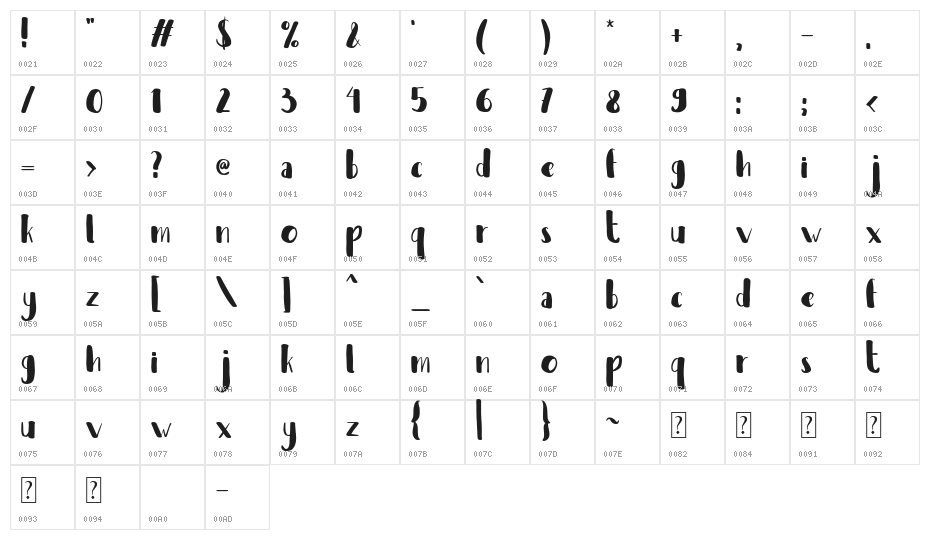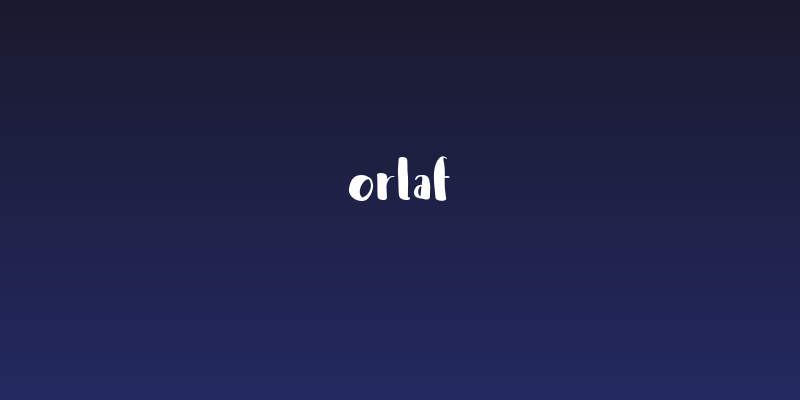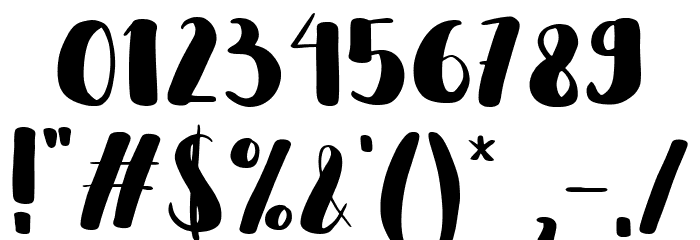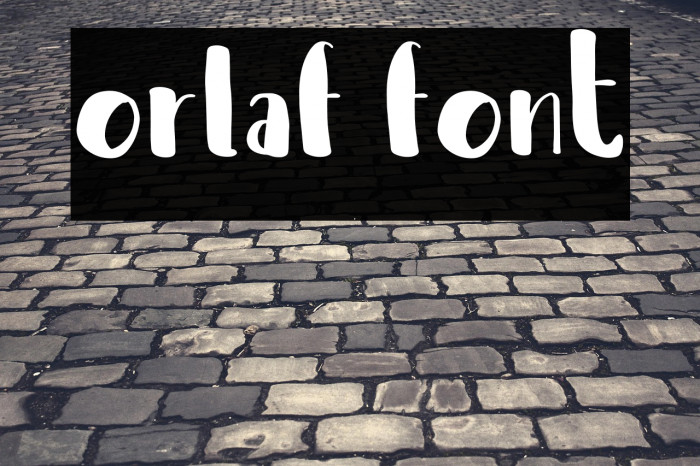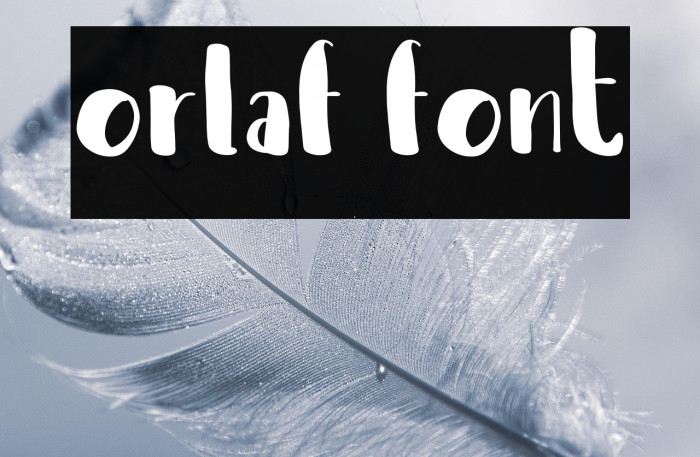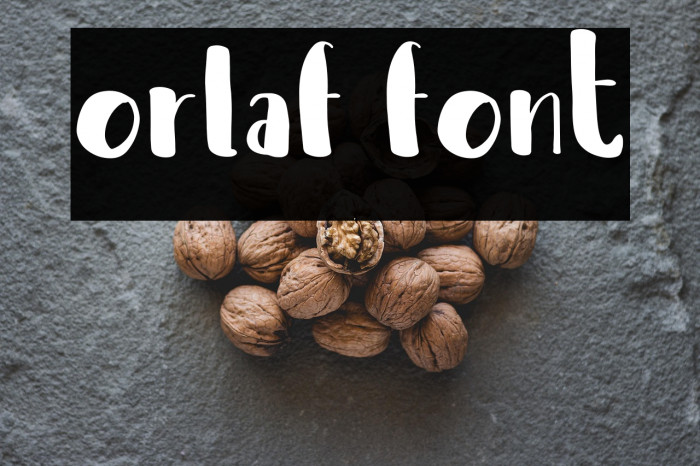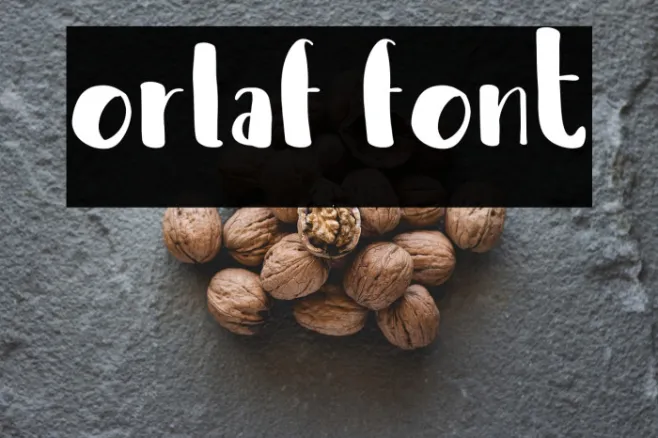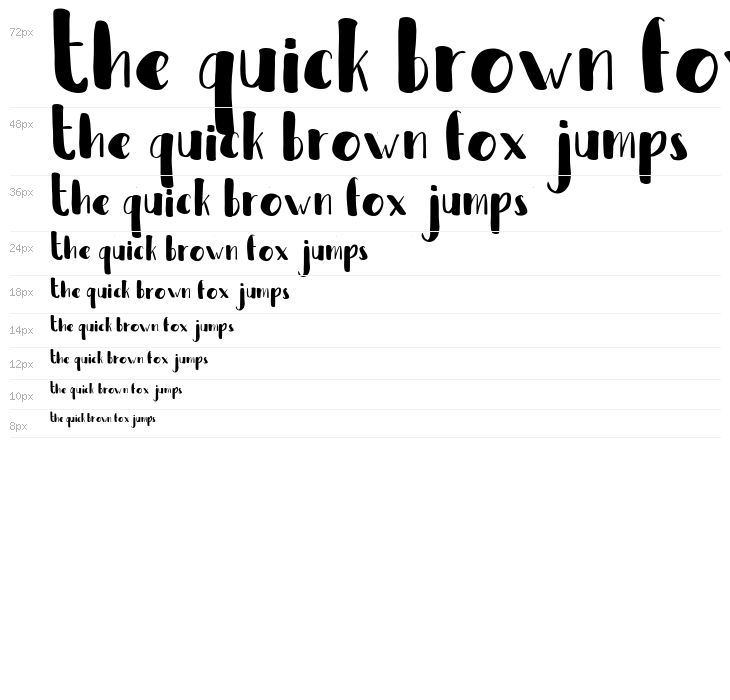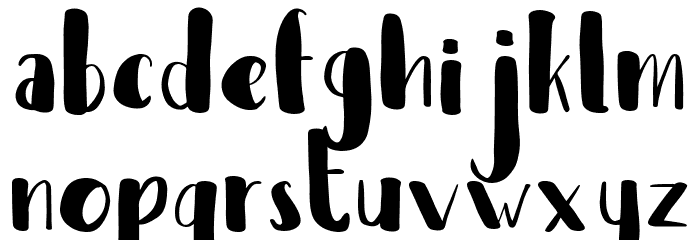
Orlaf Font
Orlaf Description
This font features a playful and bold handwritten style, characterized by its thick strokes and slightly irregular shapes that give it a lively and dynamic appearance. The letters are rounded with a consistent weight, adding a sense of friendliness and approachability. The uppercase and lowercase letters are distinct yet harmonious, maintaining a cohesive look throughout. The numbers and special characters follow the same playful design, making them easily recognizable and visually appealing. This font's unique style makes it suitable for creative and informal projects where a touch of personality is desired.
| Use Case | Logos, Headlines, Informal Text |
| Proposed Projects | Ideal for greeting cards, children's books, playful branding, and social media graphics. |